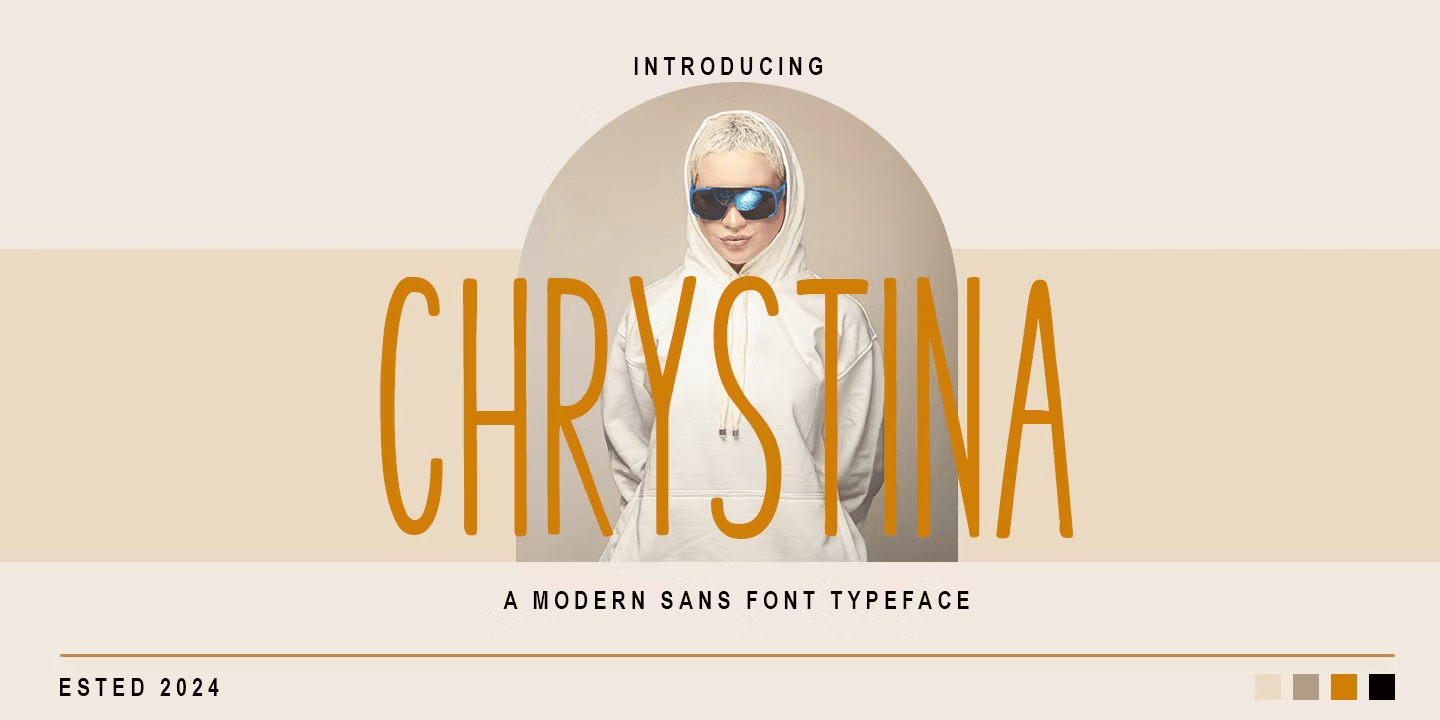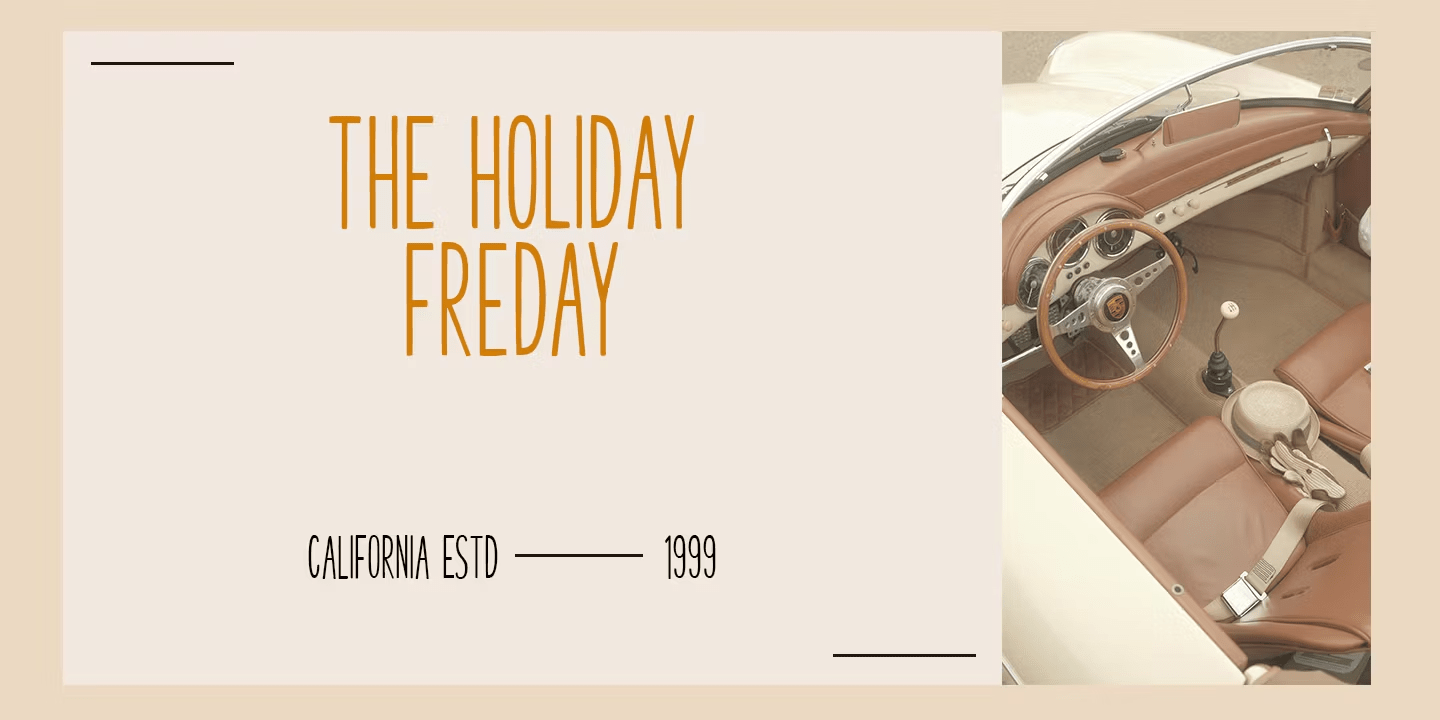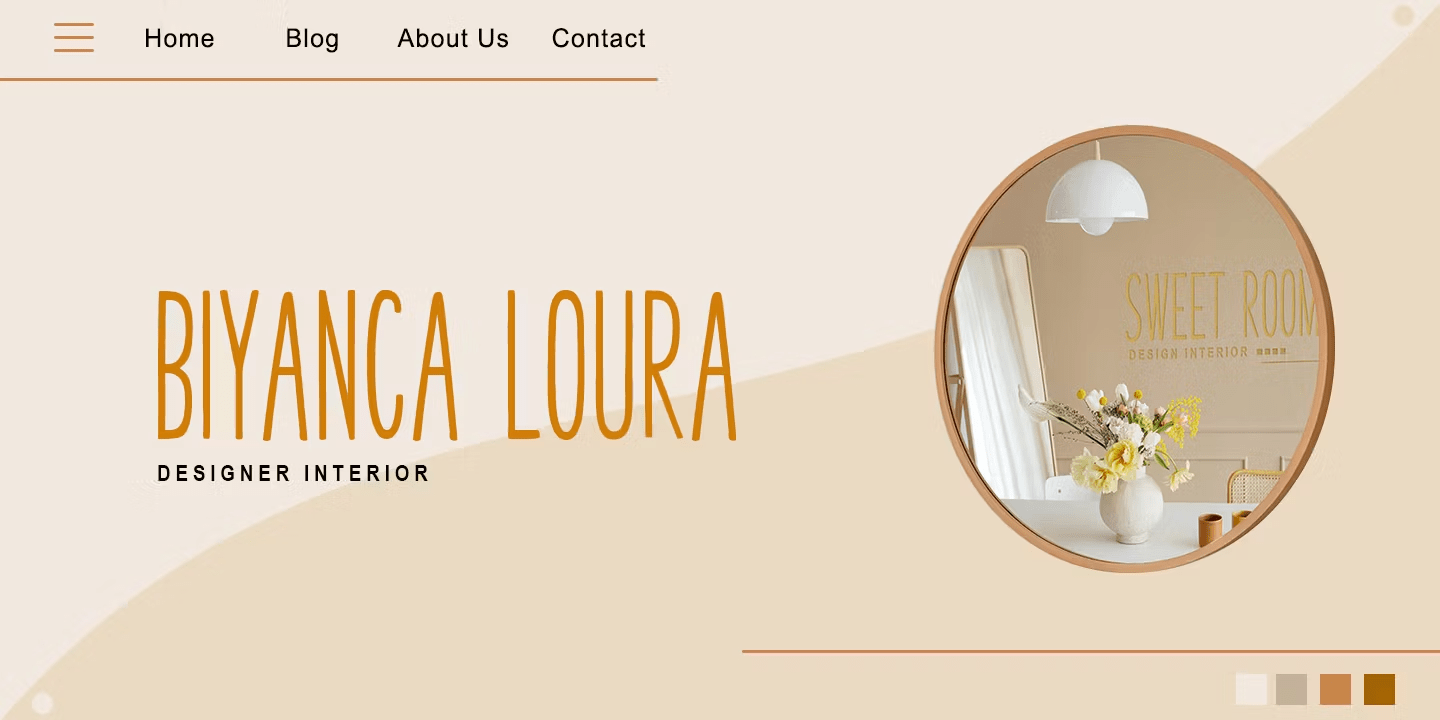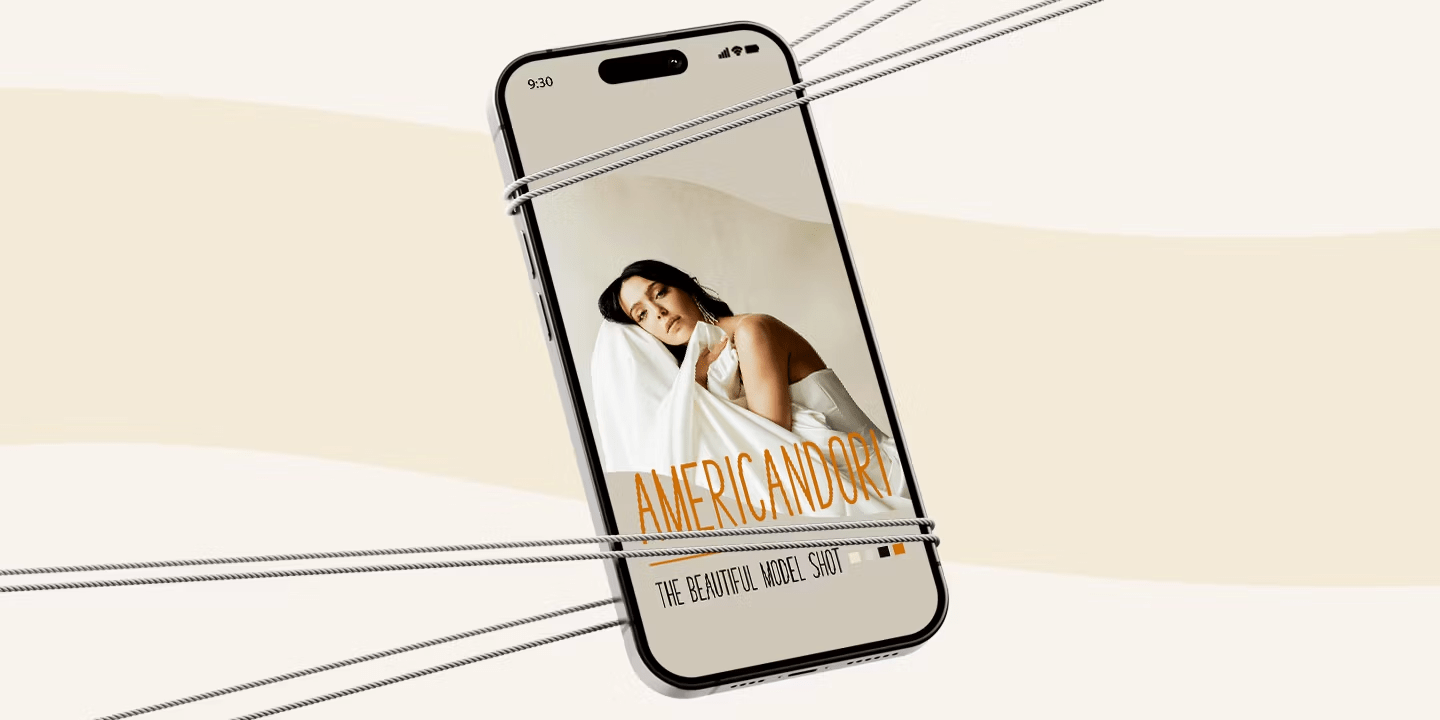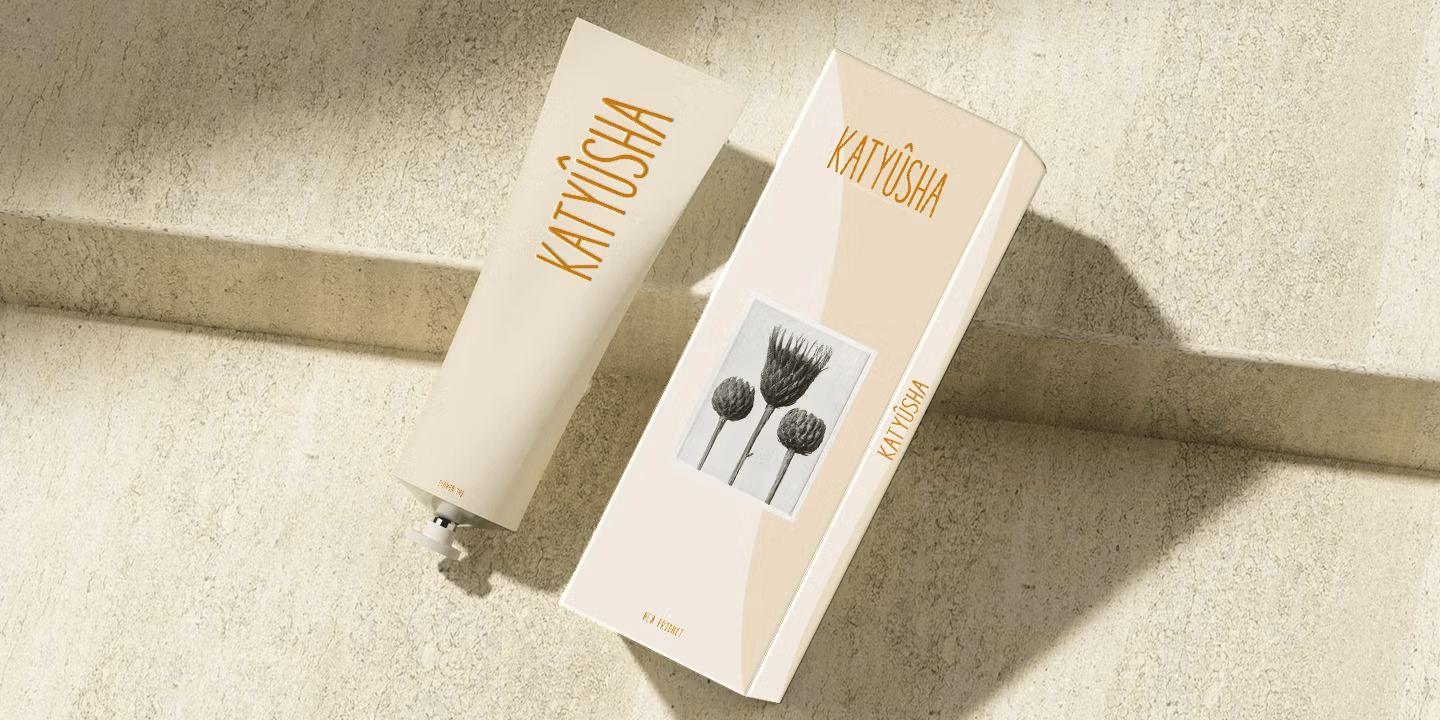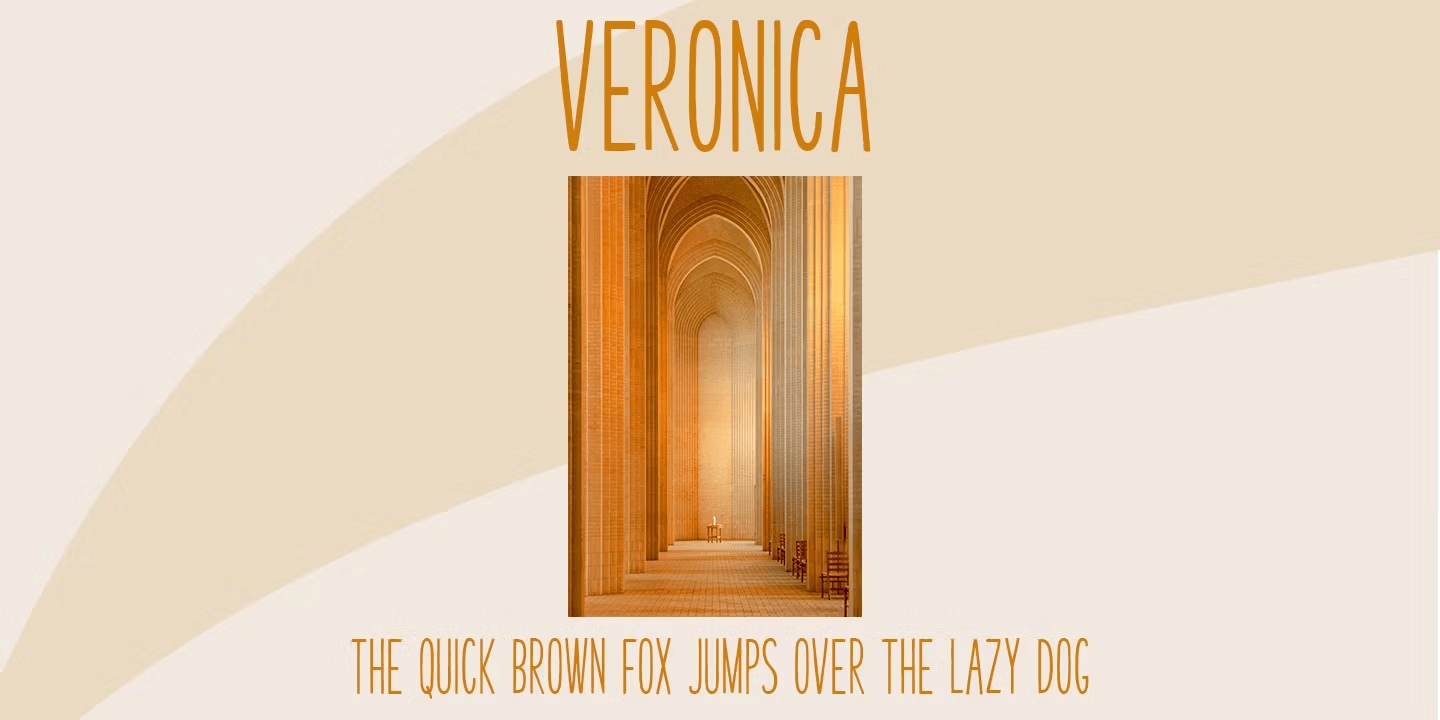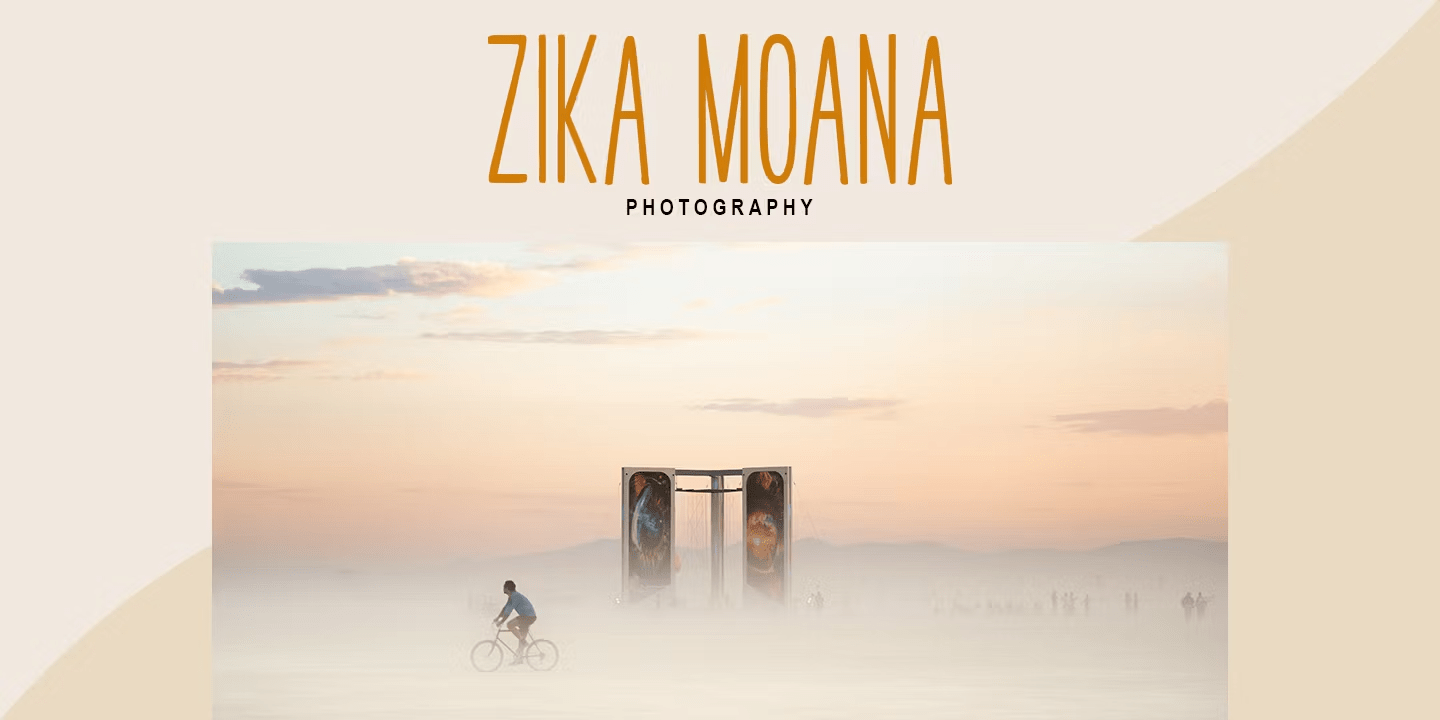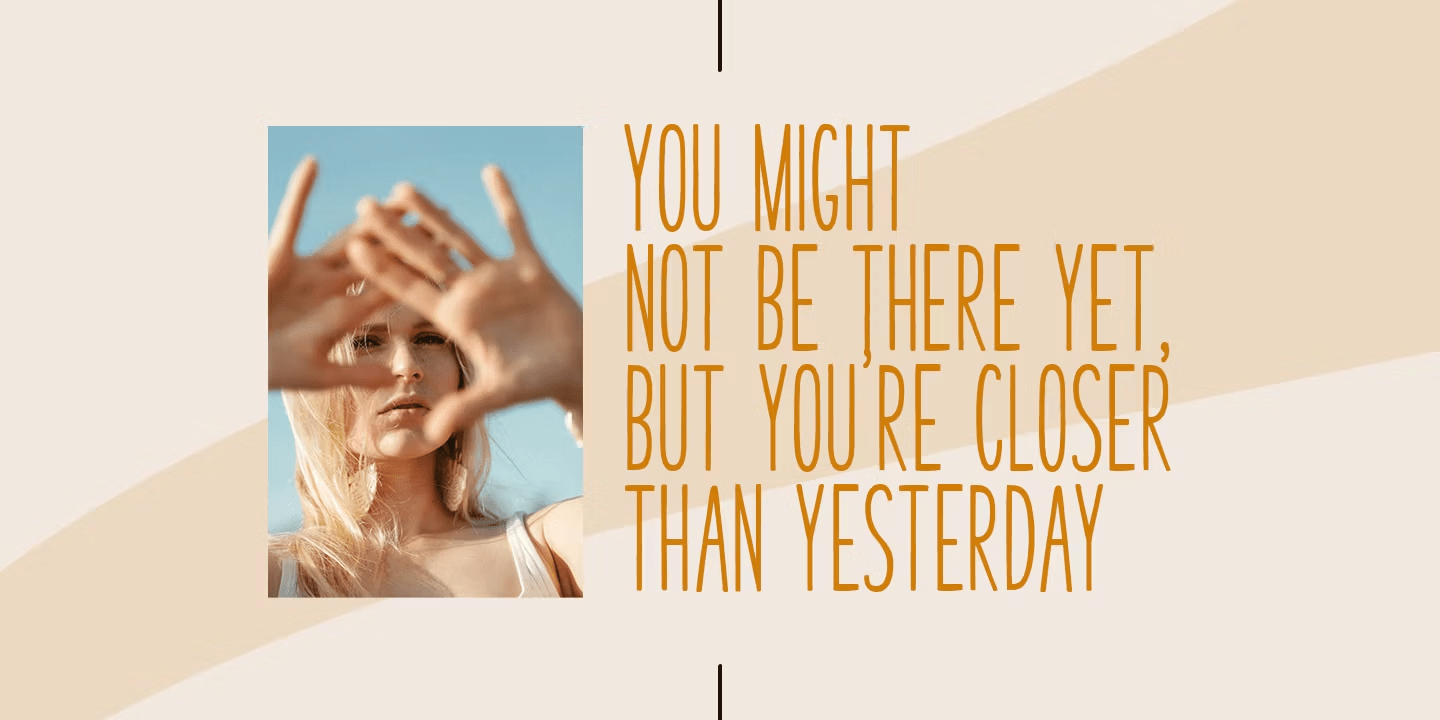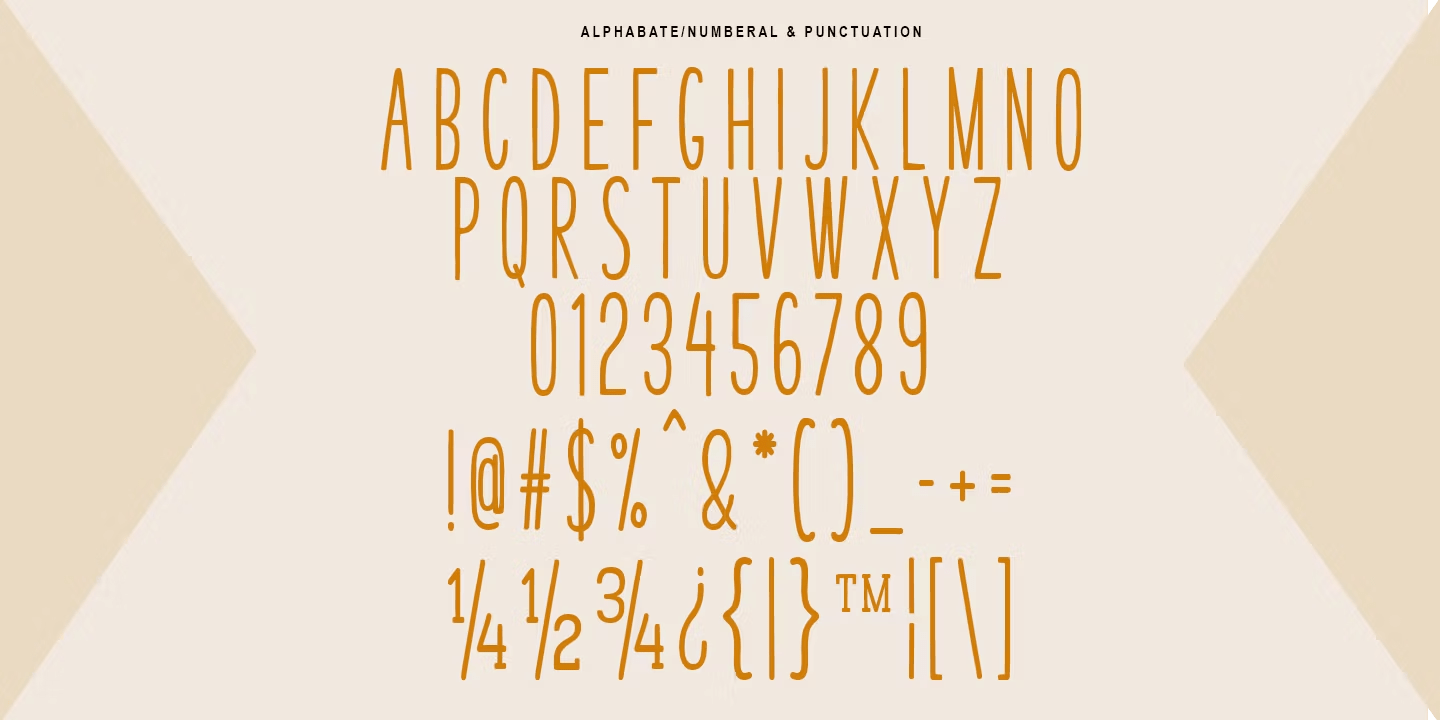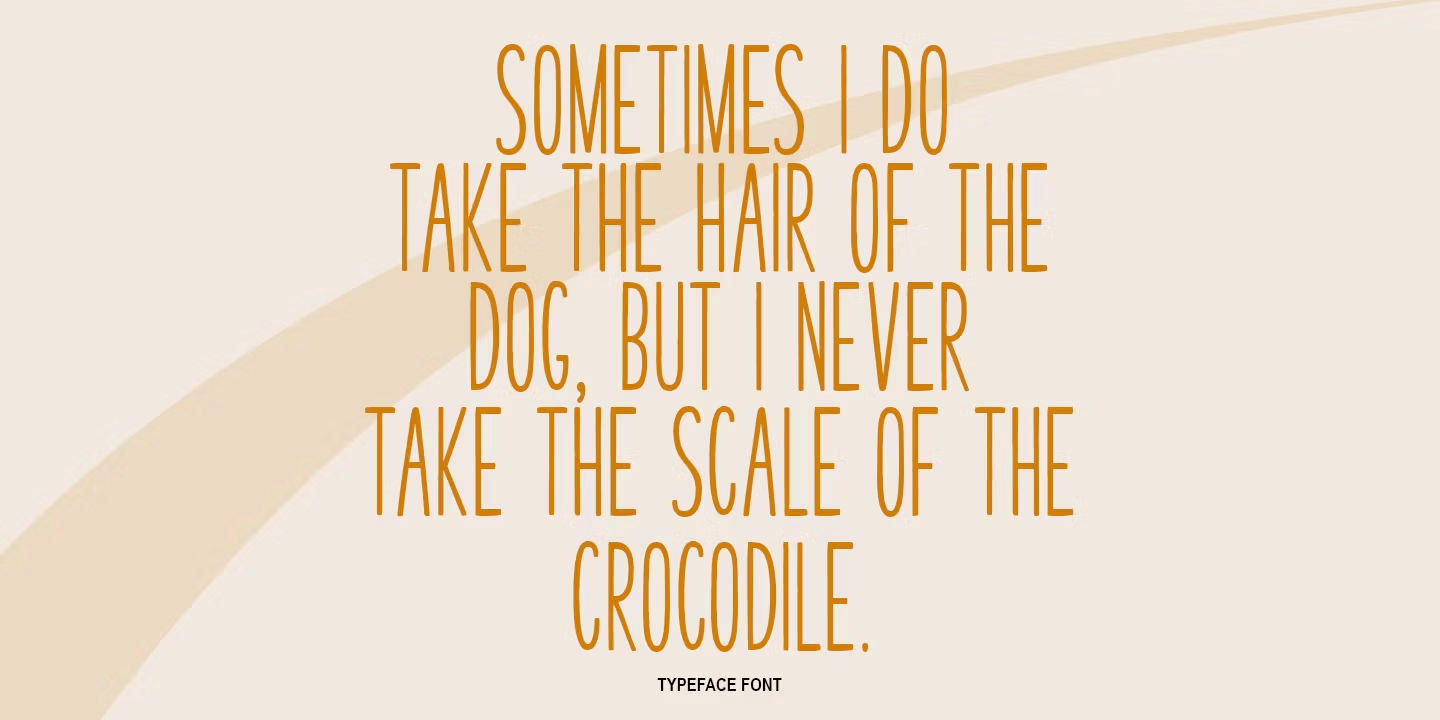
Chrystina
Chrystina is a modern and elegant monoline display font. Designed with smooth, consistent strokes, Chrystina offers a clean, minimalist look while still being eye-catching. Perfect for various design purposes such as branding, invitations, logos, and social media, this font adds a professional touch with a soft and friendly character.
Each letter in Chrystina is crafted with a seamless flow, emphasizing the monoline aesthetic with uniform thickness, creating a balanced and easily readable feel, making it versatile for a wide range of visual contexts, from formal to casual.